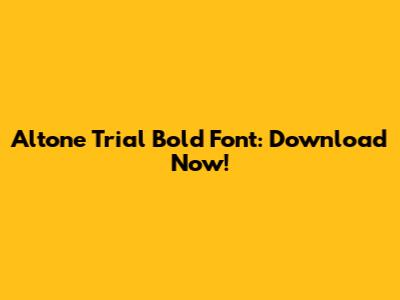
Altone Trial Bold Font: Download Now!
Hey guys! Are you on the hunt for a font that screams modern sophistication with a dash of boldness? Well, buckle up because we're diving deep into the world of Altone Trial Bold, a typeface that might just become your new best friend. In this article, we're going to explore everything about this font – where to find it, how to use it, and why it’s such a fantastic choice for a variety of design projects. So, let's get started and unleash the power of Altone Trial Bold!
What Makes Altone Trial Bold So Special?
Altone Trial Bold is more than just a font; it's a statement. Its clean lines and confident strokes make it incredibly versatile, perfect for grabbing attention without being too over-the-top. Whether you're working on a website, creating marketing materials, or designing a sleek logo, Altone Trial Bold can bring a touch of elegance and authority to your project. One of the key reasons designers love this font is its exceptional readability. The characters are well-defined, ensuring that your message comes across clearly, even at smaller sizes. Plus, the bold weight adds a punch, making it ideal for headlines and titles that need to stand out. Think about it: how many times have you scrolled past a website or a poster simply because the text was unreadable or unappealing? With Altone Trial Bold, you can avoid this pitfall and captivate your audience from the get-go. The font's modern aesthetic also makes it a perfect fit for contemporary designs. It aligns seamlessly with current trends, ensuring that your projects look fresh and up-to-date. This is especially important in today's fast-paced design world, where staying relevant is key to success. Moreover, Altone Trial Bold's versatility extends to various industries. It can be used effectively in fields ranging from technology and finance to fashion and lifestyle. Its ability to adapt to different contexts makes it a valuable asset in any designer's toolkit. So, whether you're crafting a minimalist website for a tech startup or designing eye-catching posters for a fashion event, Altone Trial Bold has got you covered. Another significant advantage of using Altone Trial Bold is its ability to convey a sense of professionalism and trustworthiness. The font's clean and polished appearance can enhance the credibility of your brand or project, making it more appealing to potential clients or customers. In a world where first impressions matter, this can be a game-changer. Ultimately, Altone Trial Bold is a font that combines style, functionality, and versatility in a way that few others can. Its unique blend of modern aesthetics and readability makes it an excellent choice for designers looking to make a lasting impact.
How to Use Altone Trial Bold Effectively
Alright, you've got your hands on the Altone Trial Bold font – fantastic! Now, let's talk about how to use it effectively to make your designs truly shine. The key here is understanding the font's strengths and using it in a way that complements your overall design aesthetic. First and foremost, consider the context in which you're using the font. Altone Trial Bold is particularly well-suited for headlines, titles, and branding materials where you want to make a bold statement. Its strong, clean lines command attention and can help draw the viewer's eye to key elements of your design. However, it's essential to avoid overusing the font, as too much boldness can become overwhelming and detract from the overall message. When using Altone Trial Bold in headlines, pay attention to the size and spacing of the letters. Experiment with different font sizes to find the perfect balance between prominence and readability. Adjusting the letter spacing (kerning) can also help improve the overall visual appeal of the text. In addition to headlines, Altone Trial Bold can be effective in logos and branding materials. Its modern aesthetic can help convey a sense of sophistication and professionalism, making it a great choice for businesses that want to project a contemporary image. However, it's important to ensure that the font aligns with the overall brand identity and target audience. When it comes to body text, it's generally best to use Altone Trial Bold sparingly. While its readability is good, its boldness can make it tiring to read large blocks of text. Instead, consider using it for subheadings or callouts to add emphasis and break up the monotony of the text. Another important consideration is the font's color. Altone Trial Bold looks great in a variety of colors, but it's essential to choose colors that complement the overall design and enhance readability. High-contrast color combinations, such as black on white or white on dark blue, can be particularly effective. Experiment with different color palettes to find the ones that work best for your project. Finally, don't be afraid to experiment with different design elements to enhance the impact of Altone Trial Bold. Adding visual elements like images, icons, or illustrations can help create a more engaging and visually appealing design. Just make sure that these elements complement the font and don't distract from the overall message. In summary, using Altone Trial Bold effectively involves understanding its strengths, considering the context, paying attention to size and spacing, choosing appropriate colors, and experimenting with different design elements. By following these tips, you can harness the power of Altone Trial Bold to create stunning designs that capture attention and communicate your message effectively.
Why Choose Altone Trial Bold Over Other Fonts?
Okay, let's get down to the nitty-gritty: why should you pick Altone Trial Bold over the countless other fonts out there? That's a valid question, and the answer lies in its unique blend of characteristics that make it stand out from the crowd. First off, Altone Trial Bold offers a distinctive balance between modernity and readability. Many bold fonts can feel clunky or outdated, but Altone Trial Bold manages to maintain a sleek, contemporary look while remaining incredibly easy to read. This is a crucial advantage, especially in today's digital world where users have short attention spans. Another compelling reason to choose Altone Trial Bold is its versatility. It's not just a one-trick pony; this font can adapt to a wide range of design styles and applications. Whether you're working on a minimalist website, a bold marketing campaign, or a sophisticated branding project, Altone Trial Bold can seamlessly integrate into your design and elevate its overall impact. Furthermore, Altone Trial Bold exudes a sense of confidence and authority. Its strong, clean lines convey a message of professionalism and trustworthiness, making it an excellent choice for businesses that want to project a credible image. This can be particularly beneficial for companies in industries like finance, technology, or consulting, where trust is paramount. In addition to its aesthetic qualities, Altone Trial Bold also offers practical advantages. Its well-defined characters and consistent weight ensure that it looks great at a variety of sizes, from large headlines to small body text. This makes it a versatile choice for both print and digital applications. Moreover, Altone Trial Bold is designed with attention to detail, ensuring that it renders smoothly and legibly on different devices and platforms. This is essential for creating a consistent user experience across all touchpoints. Compared to other fonts, Altone Trial Bold often strikes a better balance between uniqueness and usability. Some fonts are so quirky or stylized that they become difficult to read or integrate into a cohesive design. Altone Trial Bold, on the other hand, offers a distinctive look without sacrificing readability or versatility. Finally, choosing Altone Trial Bold can help you stand out from the crowd. While some fonts are ubiquitous and overused, Altone Trial Bold offers a fresh, modern alternative that can help your designs make a lasting impression. In summary, Altone Trial Bold stands out from other fonts due to its unique blend of modernity, readability, versatility, and authority. Its ability to adapt to different design styles, convey a sense of professionalism, and ensure a consistent user experience makes it an excellent choice for designers looking to create impactful and memorable designs.
Final Thoughts
So, there you have it! Altone Trial Bold is a fantastic font that can really elevate your design projects. Its versatility, readability, and modern aesthetic make it a top contender for any designer looking to make a statement. Remember to always check the licensing agreements when downloading trial fonts and consider purchasing a full license for commercial use. Happy designing, and go make some magic with Altone Trial Bold!